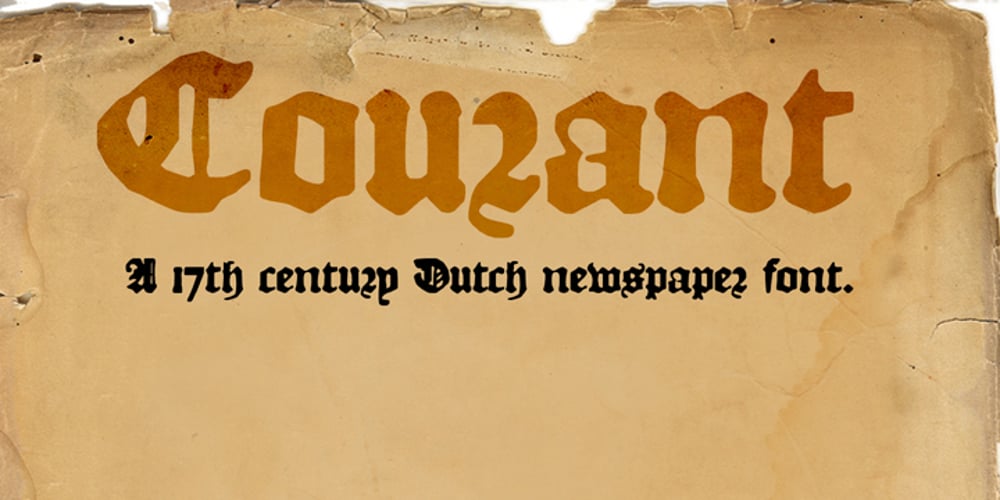
Courant Font Family was designed by David Kerkhoff and published by Hanoded. Courant contains 1 styles and family package options. “Courant” means “newspaper”. Courant font was modeled on 17th century Dutch newspapers and most of the glyphs are authentic. The ‘modern’ glyphs, like @, $, €, * and several others have been designed by me, as they were not in use in the 1600’s.